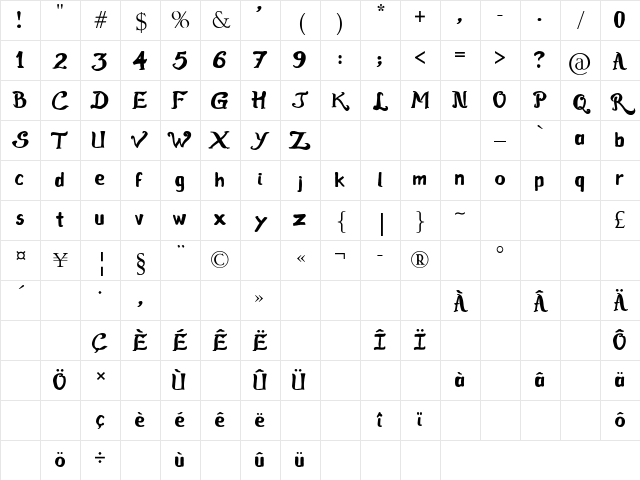
Complete Raslens Shaa Abedossen Regular glyph index. Displaying only characters natively supported by Raslens Shaa Abedossen Regular font.
Raslens Shaa Abedossen is a composed and adaptable typeface that performs quietly and consistently across a wide range of design contexts.